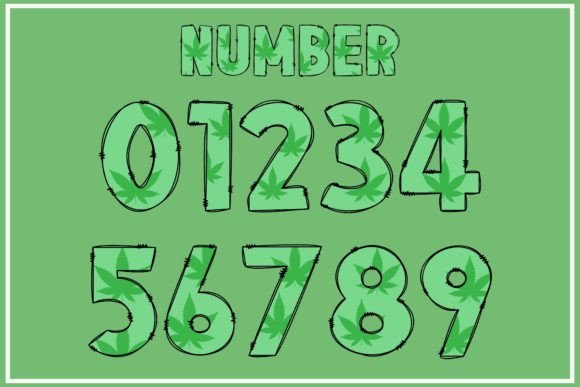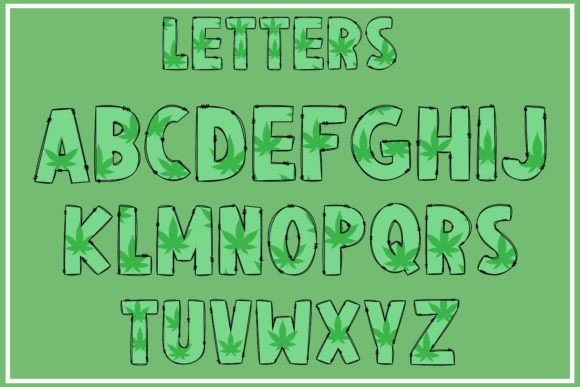
Getting Inspired by the High Life
Have you ever found yourself strolling through a vibrant street market, surrounded by the aroma of fresh herbs and the hum of creative energy? For many designers, this is the perfect setting to spark new ideas and get inspired. As you wander through the stalls, you might catch a glimpse of a bold, eye-catching design that catches your attention – and that’s exactly what we’re here to talk about.
Meet the Cannabis Font, a cool and trendy typeface perfect for any creative project related to the world of cannabis. Whether you’re designing apparel, homeware, or branding materials, this font is sure to bring a touch of modernity and sophistication to your work. As a designer, you know how valuable a versatile font like the Cannabis Font can be – it’s the perfect addition to your toolkit, waiting to elevate your next project to the next level.
Cannabis Font Key Features
- Unique Characteristics: The Cannabis Font features a distinctive, hand-drawn style with intricate details, making it ideal for designs that require a unique and personalized touch.
- Style Options: The font includes multiple style options, including regular, bold, italic, and bold-italic, allowing designers to customize their text to suit their specific needs.
Cannabis Font Review
As a designer, I was initially drawn to the Cannabis Font due to its unique aesthetic and bold character. ✨ The font’s distinctive styling, which incorporates elements of cannabis leaves and other related motifs, is sure to make a statement in any design project.
Some of the things that work well with the Cannabis Font include:
- ✨ Its bold and eye-catching design, making it perfect for use in headings and titles.
- ✨ The font’s versatility, allowing it to be used in a wide range of contexts, from marketing materials to packaging design.
- ✨ The font’s uniqueness, which can help to differentiate a brand or product from its competitors.
- ⚠️ The font’s bold styling may be overwhelming in certain contexts, such as in large blocks of text.
- ⚠️ The font’s cannabis-related design may not be suitable for all audiences or industries.
Overall, I think the Cannabis Font is a unique and effective choice for designers looking to make a bold statement. While it may have some limitations, its benefits make it a great option for certain projects.
For best results, use Cannabis Font in headings and titles to add a touch of sophistication.
For best results, use Cannabis Font in bold and italic styles to add emphasis.
For best results, use Cannabis Font in headings and titles to add a touch of elegance.
Tips for Getting the Most Out of Cannabis Font
Use Cannabis Font in combination with other fonts to create a unique and eye-catching design.
Experiment with different font sizes and colors to add depth and visual interest.
Consider using Cannabis Font in digital and print materials, such as business cards, brochures, and social media graphics.
Cannabis Font is ideal for:
Branding and marketing materials
Food and beverage packaging
Wellness and lifestyle products
Any design project that requires a touch of sophistication and elegance.